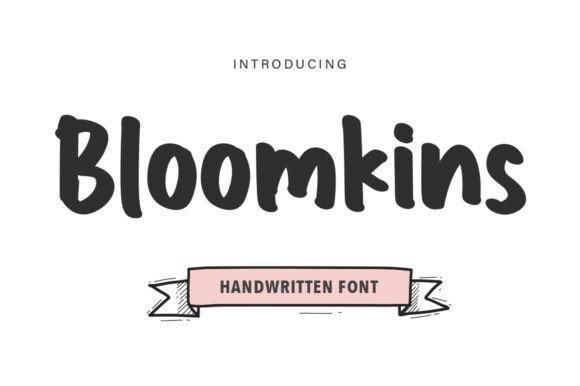
Introduction to Bloomkins Font
Cultivate a friendly aesthetic with Bloomkins, a bold display typeface that captures a “hand-drawn-and-hearty” soul.
This font features thick, rhythmic letterforms uniquely characterized by subtle organic textures and soft, rounded edges that bridge the gap between casual markers and modern lifestyle branding With its heavy structural weight and approachable personality, Bloomkins is the premier choice for independent organic food labels, creative children’s apparel, artisanal craft packaging, and high-impact “authentic-and-accessible” social media headers.